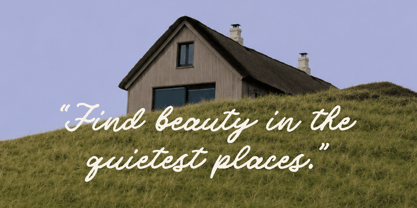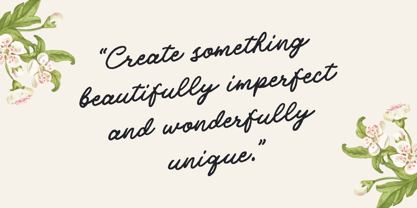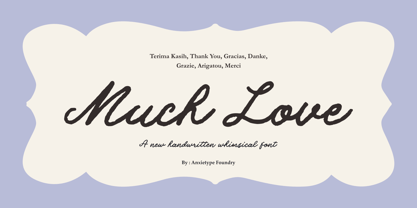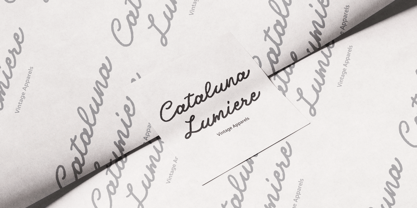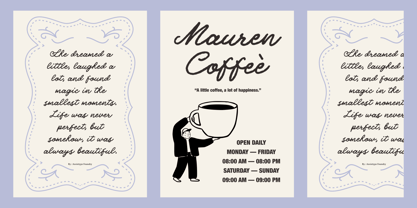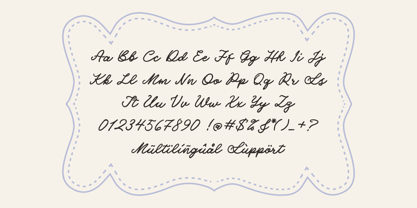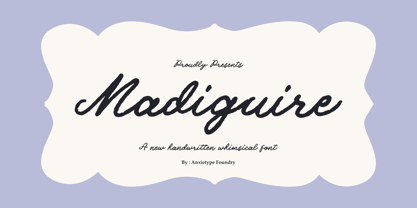
Madiguire
von Anxietype Foundry
Die Schriftfamilie Madiguire wurde von Annas Rifky Anhar entworfen und von Anxietype Foundry veröffentlicht. Madiguire enthält 1 Stile. Mehr über diese Familie
Introducing Madiguire — a charming handwritten script font meticulously crafted by Anxietype Foundry. With its playful elegance and whimsical character, Madiguire adds a warm and personal touch to every design. It shines beautifully in greeting cards, heartfelt quotes, menu designs, wedding invitations, and romantic stationery. Perfect for artists and designers seeking to infuse personality into lyric designs, magazine layouts, branding projects, social media posts, and creative headers. Let Madiguire elevate your projects with its effortless handwritten charm and distinctive character, making it an ideal choice for both digital and print applications.
Designer: Annas Rifky Anhar
Foundry: Anxietype Foundry